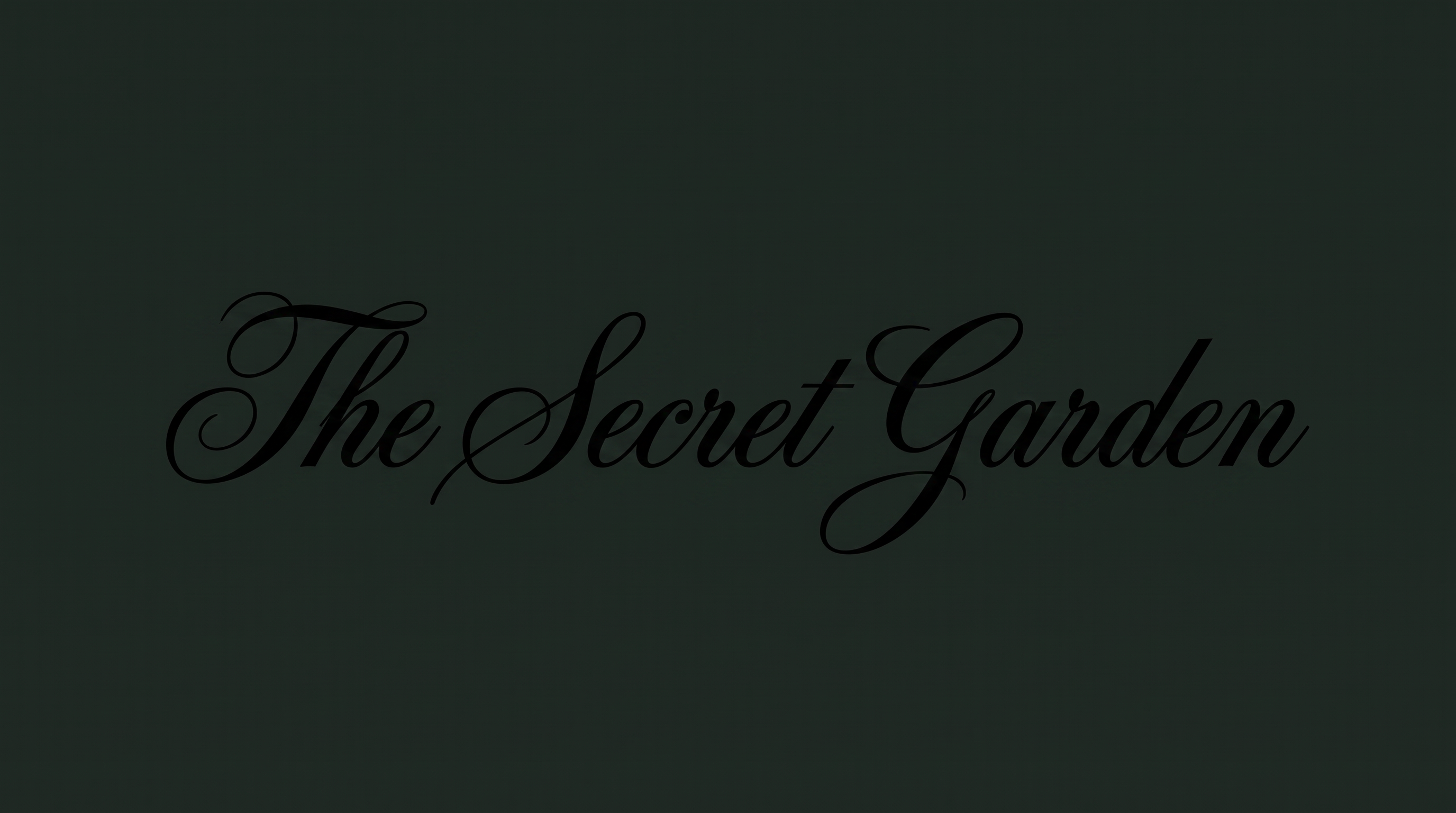
Create elegant pointed-pen calligraphy with dramatic thick-thin contrast and flowing swashes for invitations or formal names.
Shape formal calligraphic wording for a balanced layout while preserving its fine strokes and swashes.
Cursive Letter Font Generator in Use: Design Examples & Showcase
See how formal calligraphy adapts to invitations, certificates, packaging, signs, names, logos, and social graphics.
Cursive Letter Font Style Profile
Looping swashes, sharp stroke contrast, and a rightward slant define the formal calligraphic lettering.
Flourishes
Long looping swashes extend from capitals and finishing strokes.
Stroke Contrast
Bold downstrokes alternate with hairline curves across the letters.
Slant
Most capitals lean distinctly to the right along a level baseline.
Stroke Endings
Fine strokes taper into pointed tips at visible letter endings.
Letter Construction
Each capital is built from continuous, looping calligraphic strokes.
Letter Connections
The alphabet keeps clear breaks between neighboring capital letters.